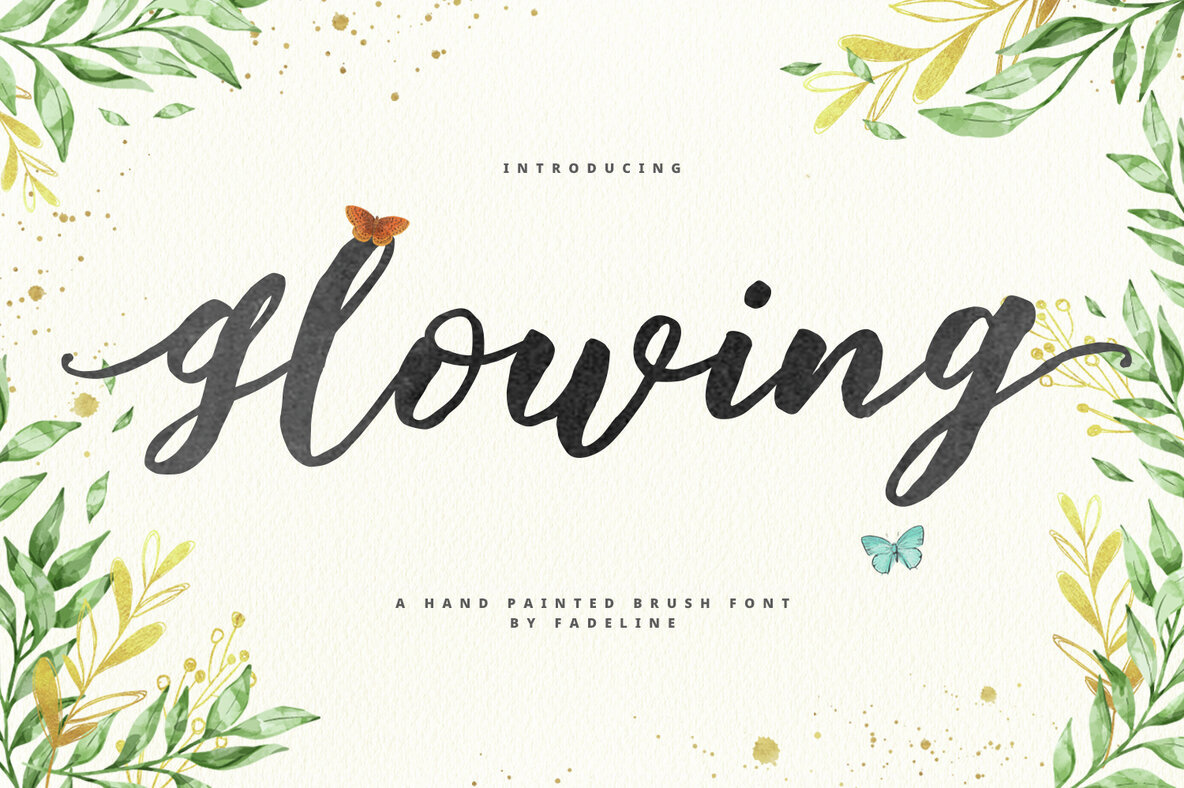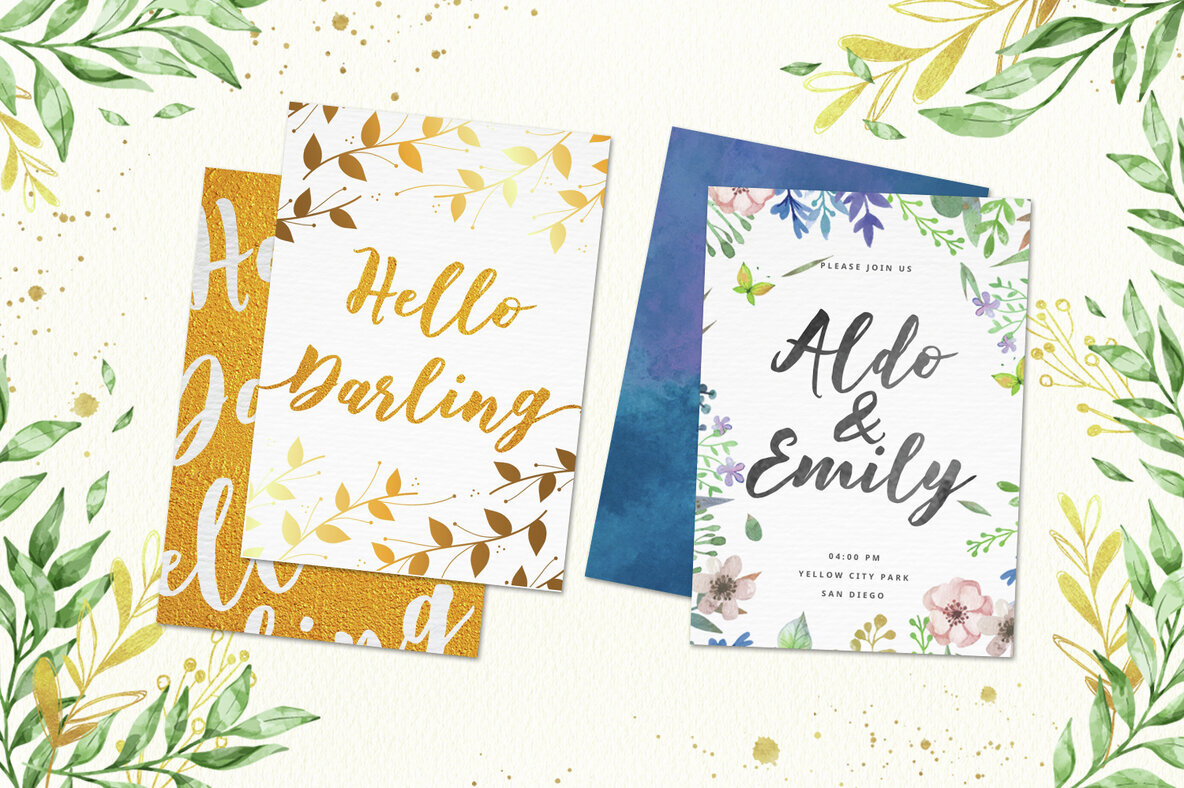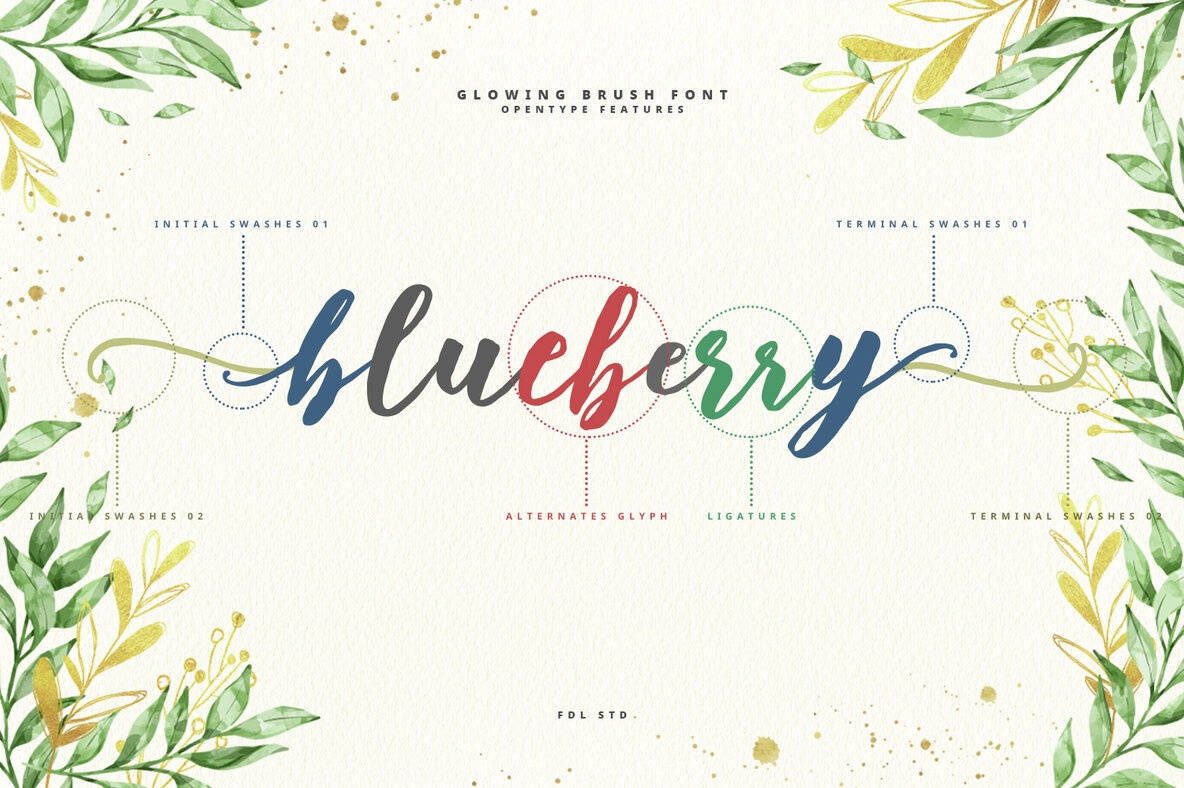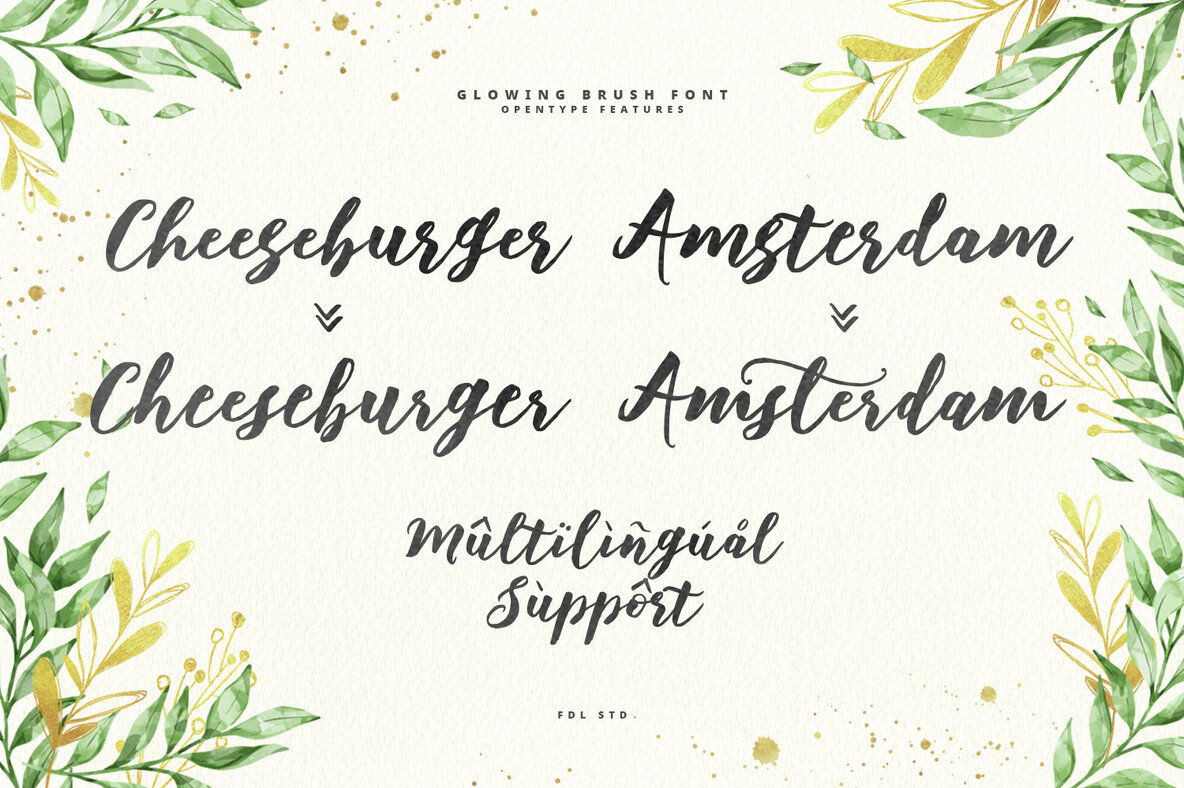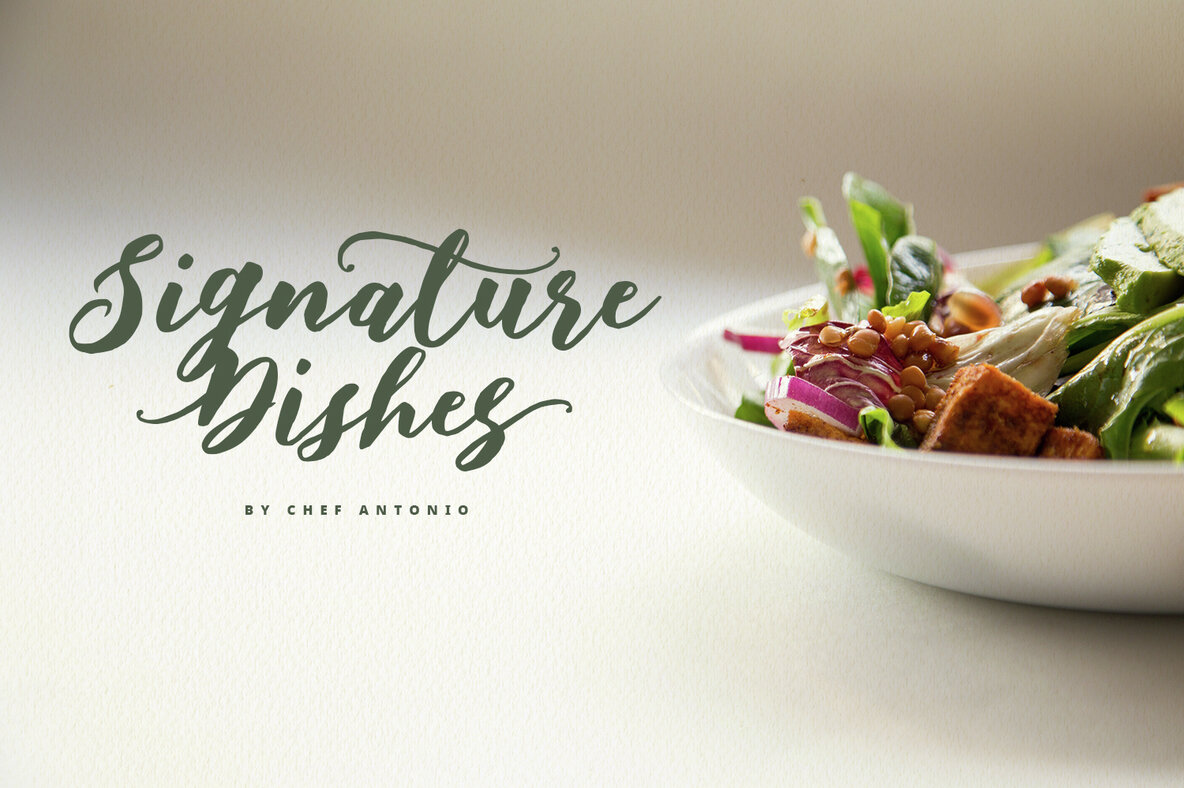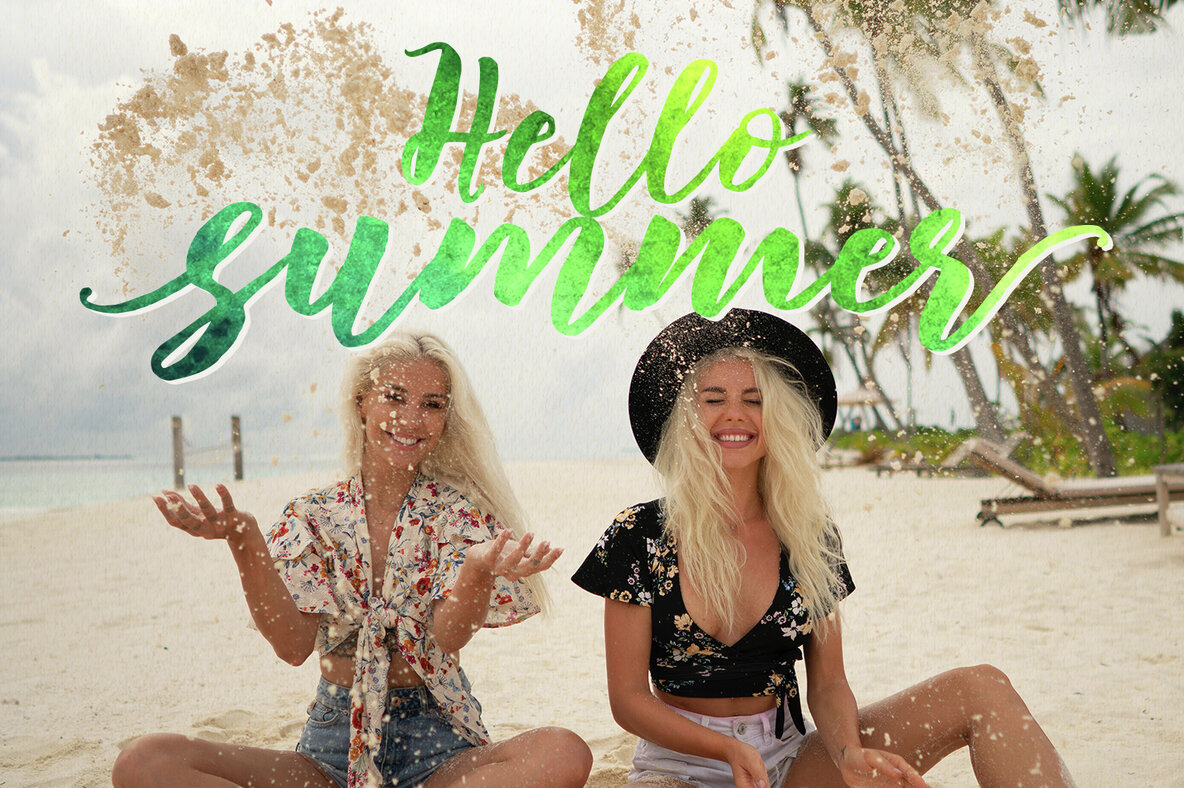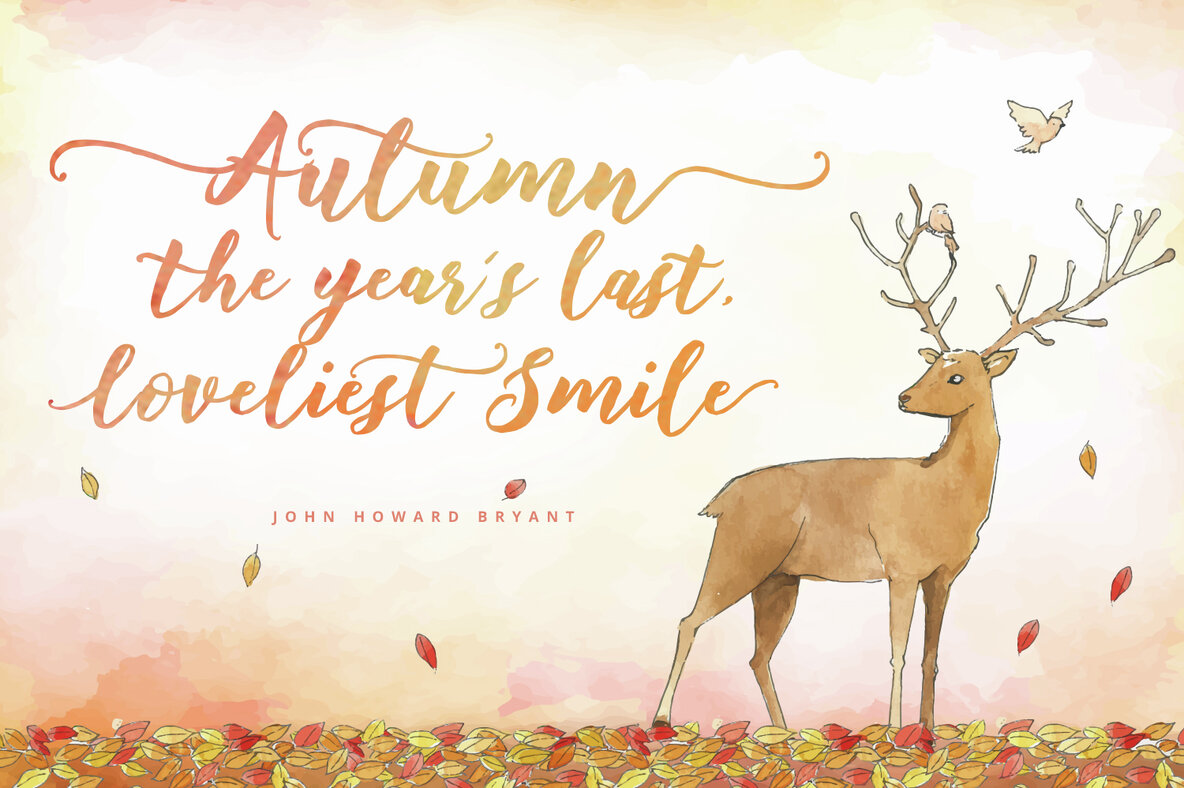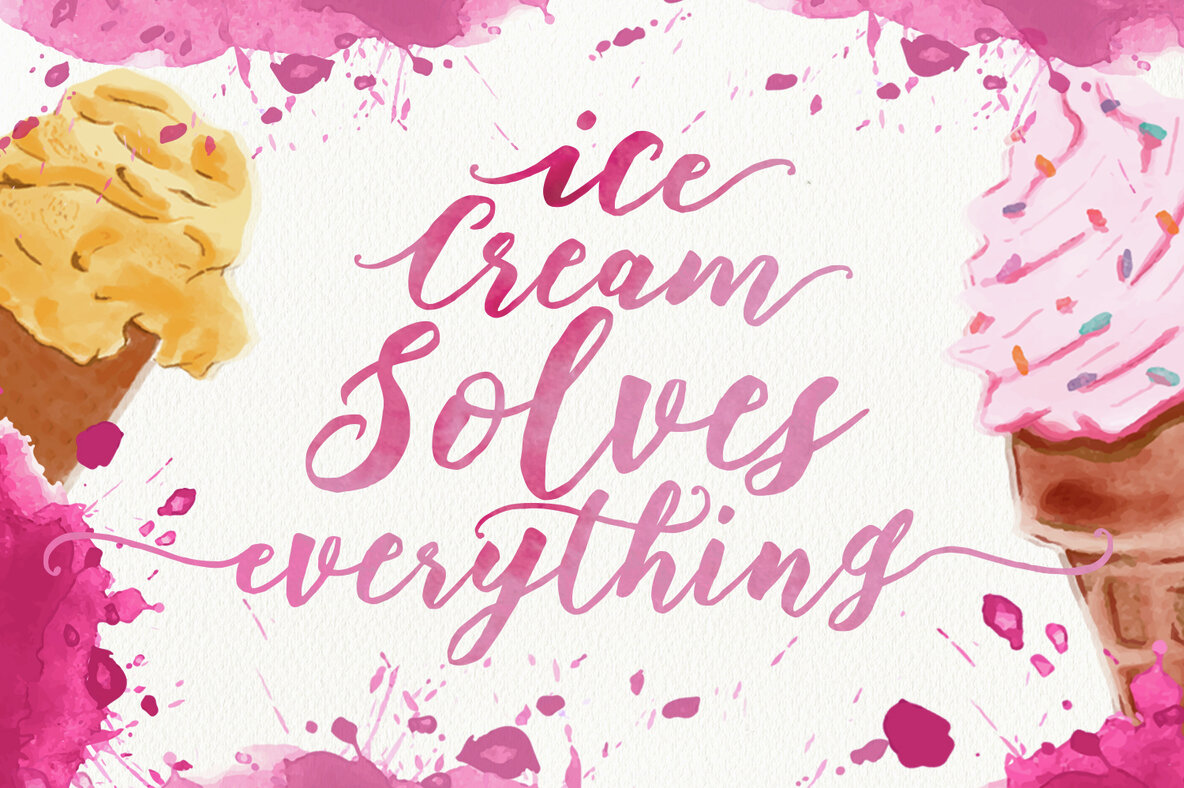
Glowing Brush Font
Glowing Brush Script
Introducing Glowing, a charming hand-painted brush font that captures the essence of natural and exquisite brush lettering. With its calligraphy-style script marked by delightful decorative end characters and a lively baseline, Glowing brings an organic touch to your designs. It's perfectly suited for projects involving ink or watercolor that aim to replicate the authenticity of handwritten art.Glowing Brush by FadeLine Studio